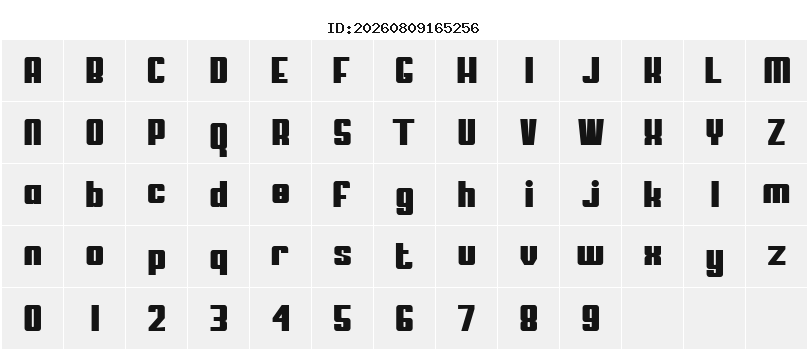
• Font Name: Park
Park.ttf is a modern, elegant sans-serif font designed for ultimate readability and visual harmony. Perfect for branding, headlines, web design, and print materials.